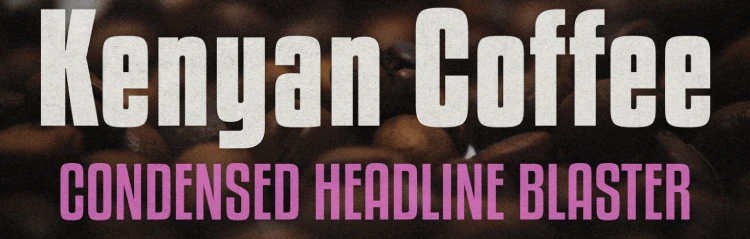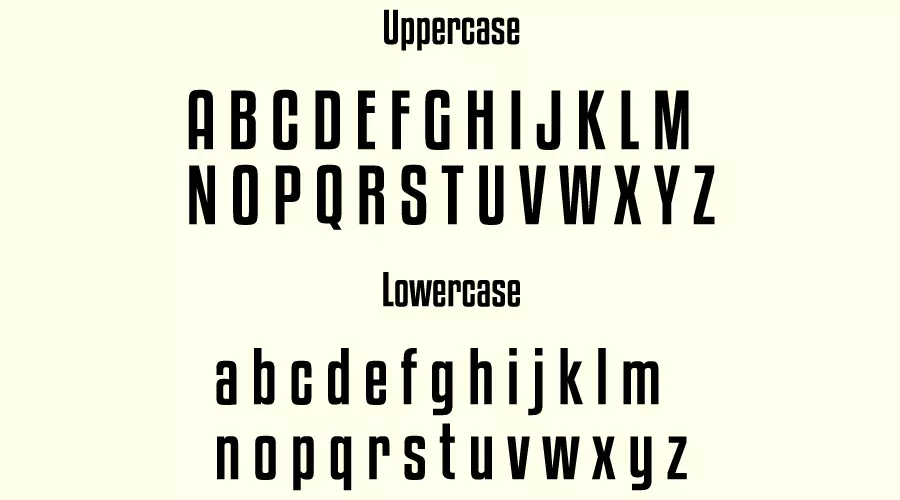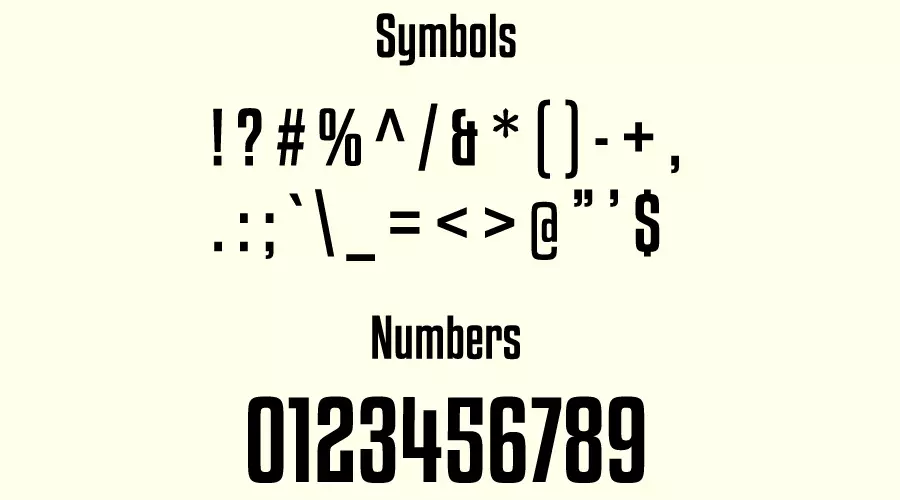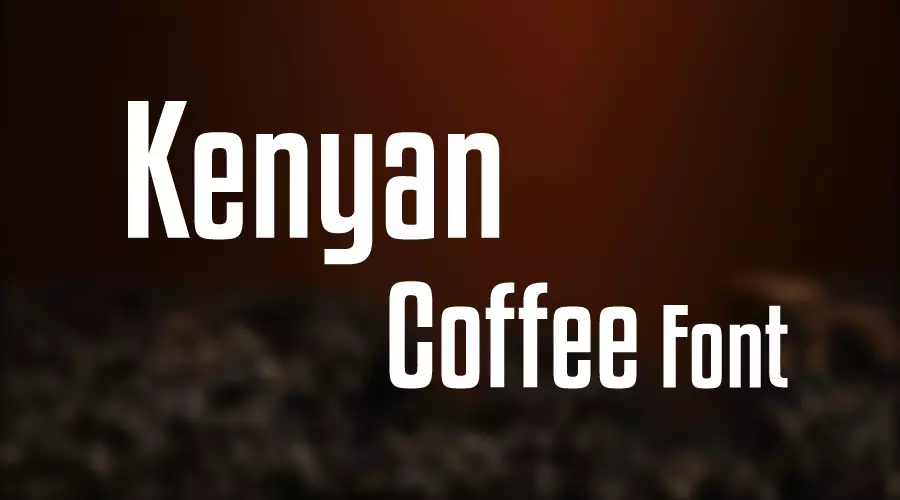
The Kenyan Coffee font is a slim, blocky display typeface inspired by compact headliners of the 1960s. The Kenyan Coffee font is part of a larger font family. The font family was designed by Ray Larabie and published by Typodermic.
It is a sans-serif typeface available in seven weights, and italics. The font supports almost all Latin-based languages, including Vietnamese, Cyrillic languages, and Greek.
Kenyan Coffee Font stands as a unique blend of past and present in the world of typography. Its ability to encapsulate the 1960s spirit while fitting seamlessly into contemporary design marks its versatility and lasting appeal.